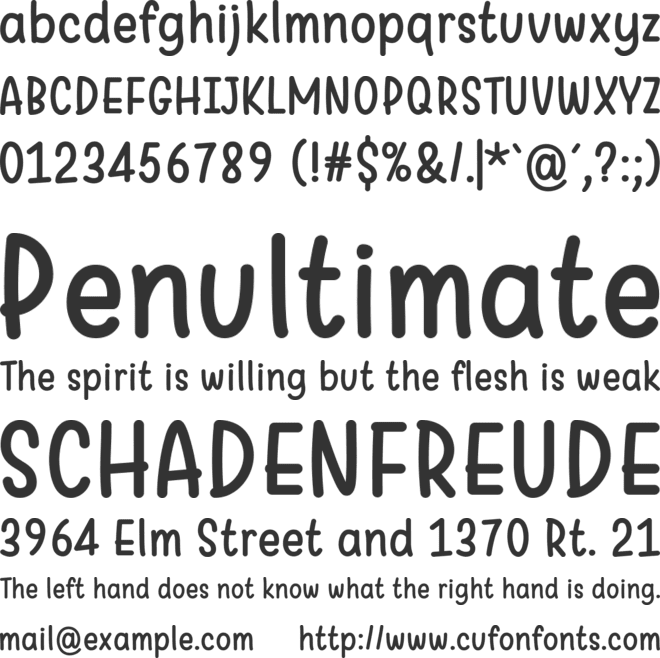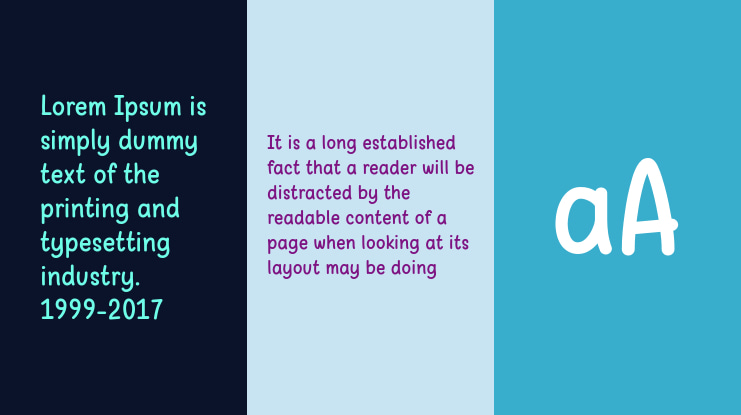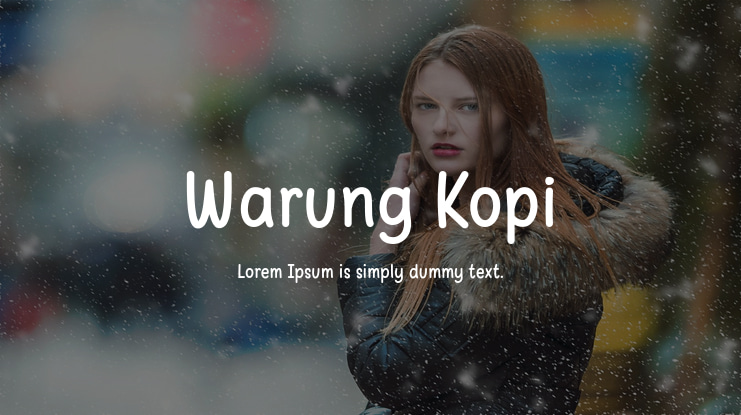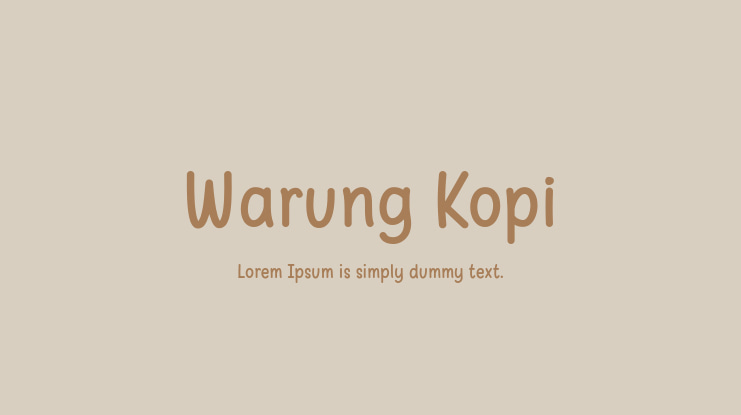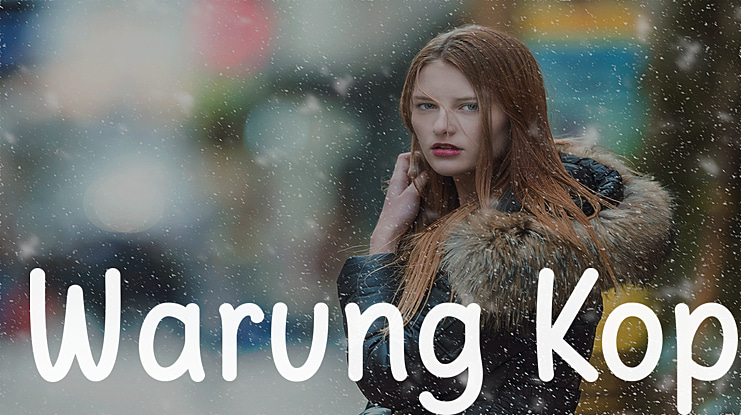
Warung Kopi Font Family
Warung Kopi © 7NTypes. 2017. All Rights ReservedWarung Kopi Font is created by Situjuh Nazara ()Warung Kopi is a neat but playful handwritten font. The Warung Kopi is easy to read and can be used for design that requires a personal touch, such as text on birthday cards, inside children books or when you want to convey a fun, light message. It’s playful enough to be used in personal projects but it’s expressive and personal enough that it’s perfect for branding and messaging.It consists of 6 Family: Warung Kopi Regular, Warung Kopi Regular Italic, Warung Kopi Light, Warung Kopi Light Italic, Warung Kopi Bold, and Warung Kopi Bold Italic.LicensePersonal use: FREE. Support me create more free for personal use font by donate as much as you appreciate it! Donation can be made via Paypal www.paypal.me/Situjuh (https://www.paypal.me/Situjuh)Commercial use: BUY it on my Creative Fabrica page: www.creativefabrica.com/product/warung-kopi/ref/87/ (https://www.creativefabrica.com/product/warung-kopi/ref/87/)The fonts I created also available on Creative Market: creativemarket.com/situjuhnazara (https://creativemarket.com/situjuhnazara)Contact me or visit my website [https://c7n1.com] if you have any request or question.